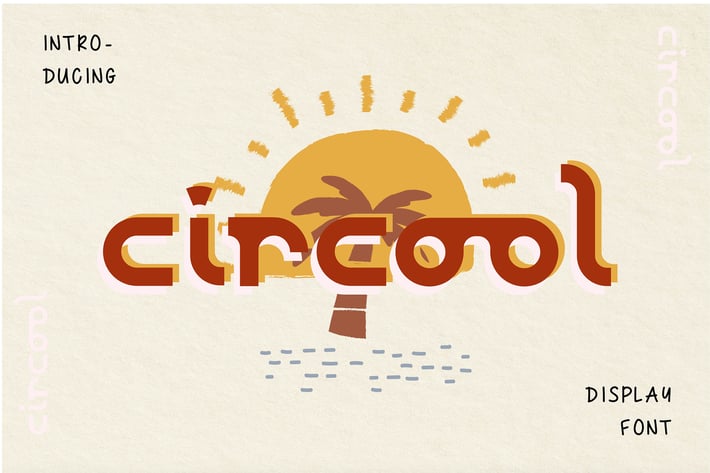
Circool | Display Font
Circool | Display Font with a calligraphy style, So beautiful on invitation like greeting cards, branding materials, business cards, quotes, posters, and more!